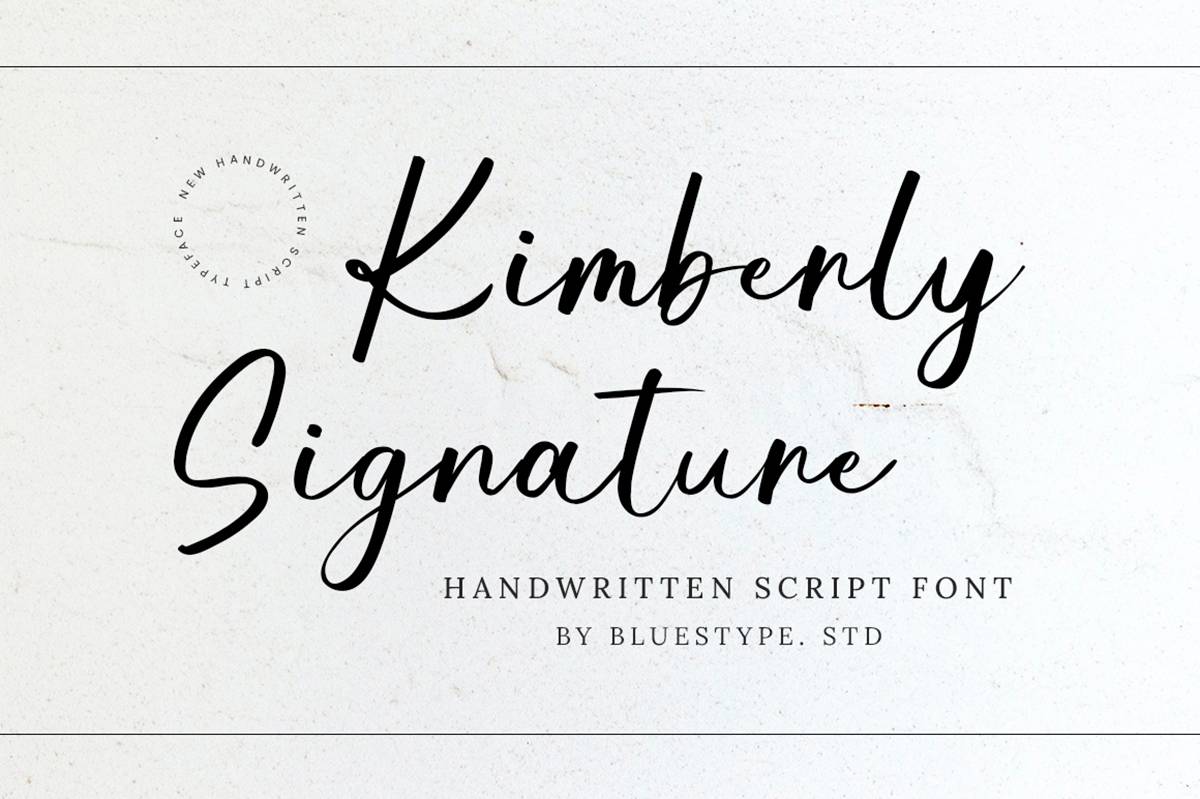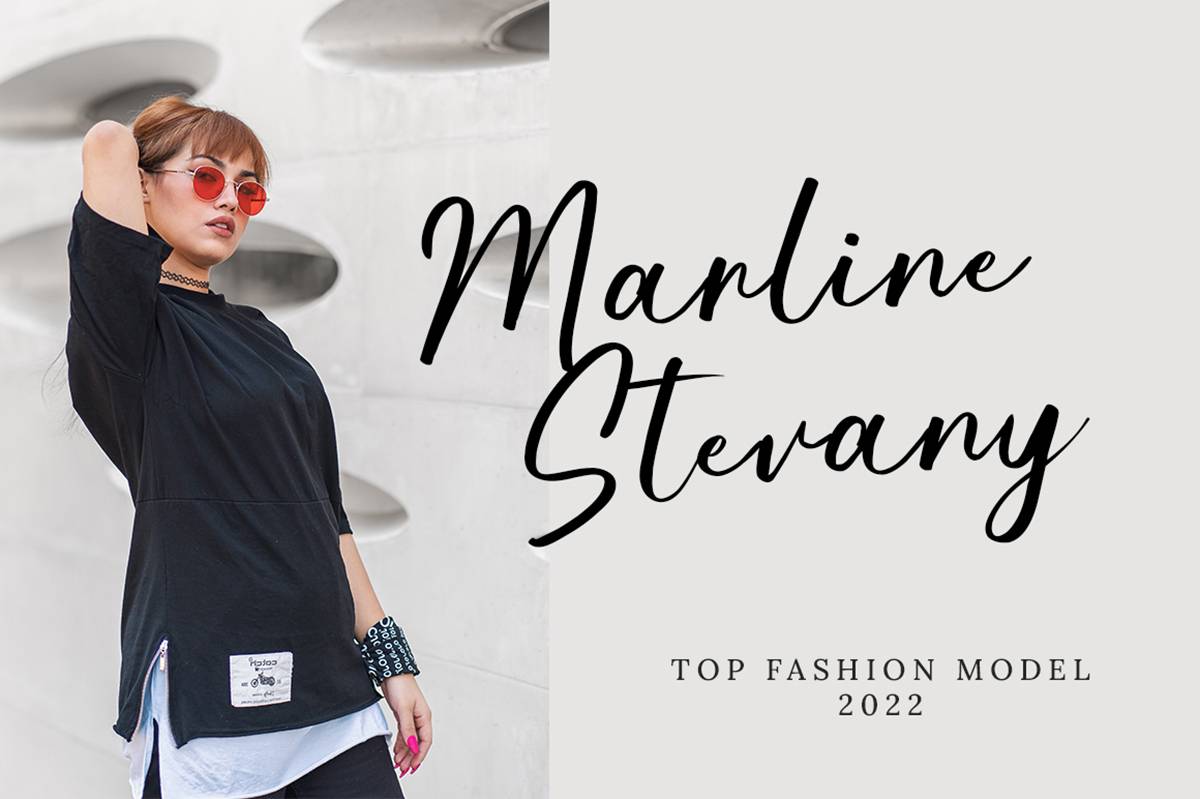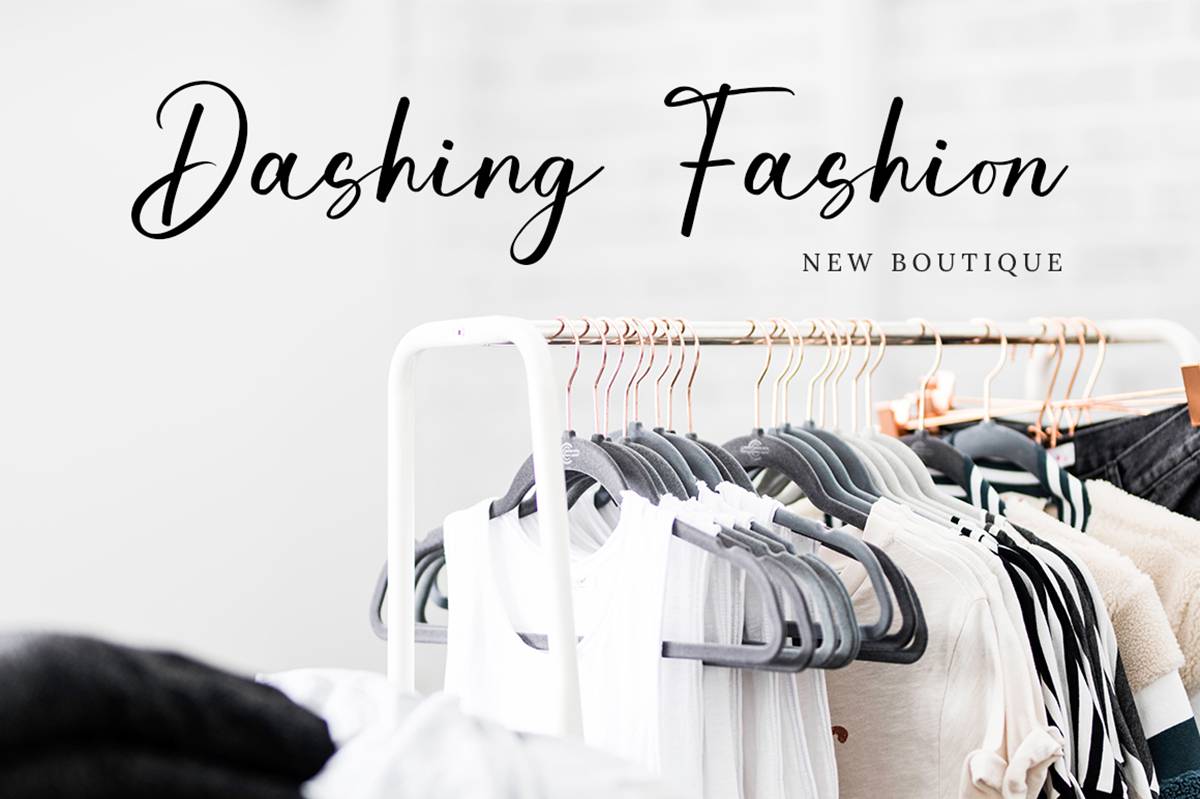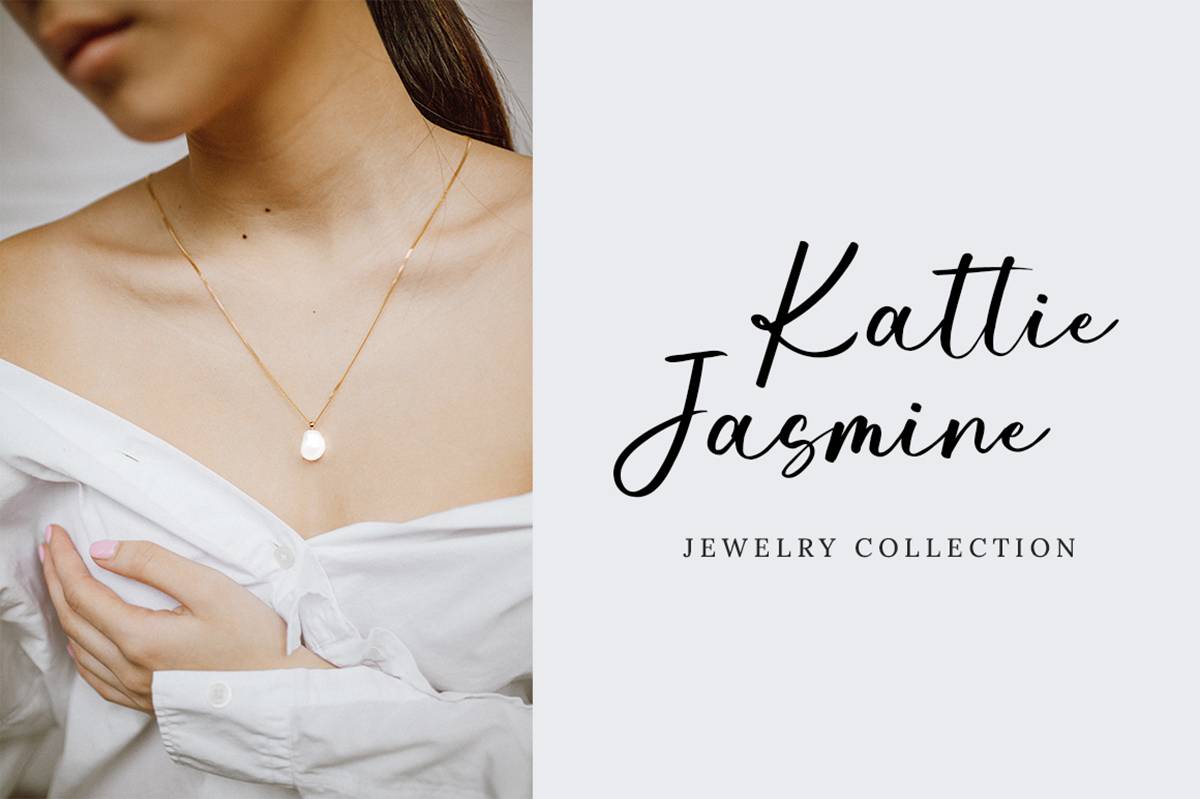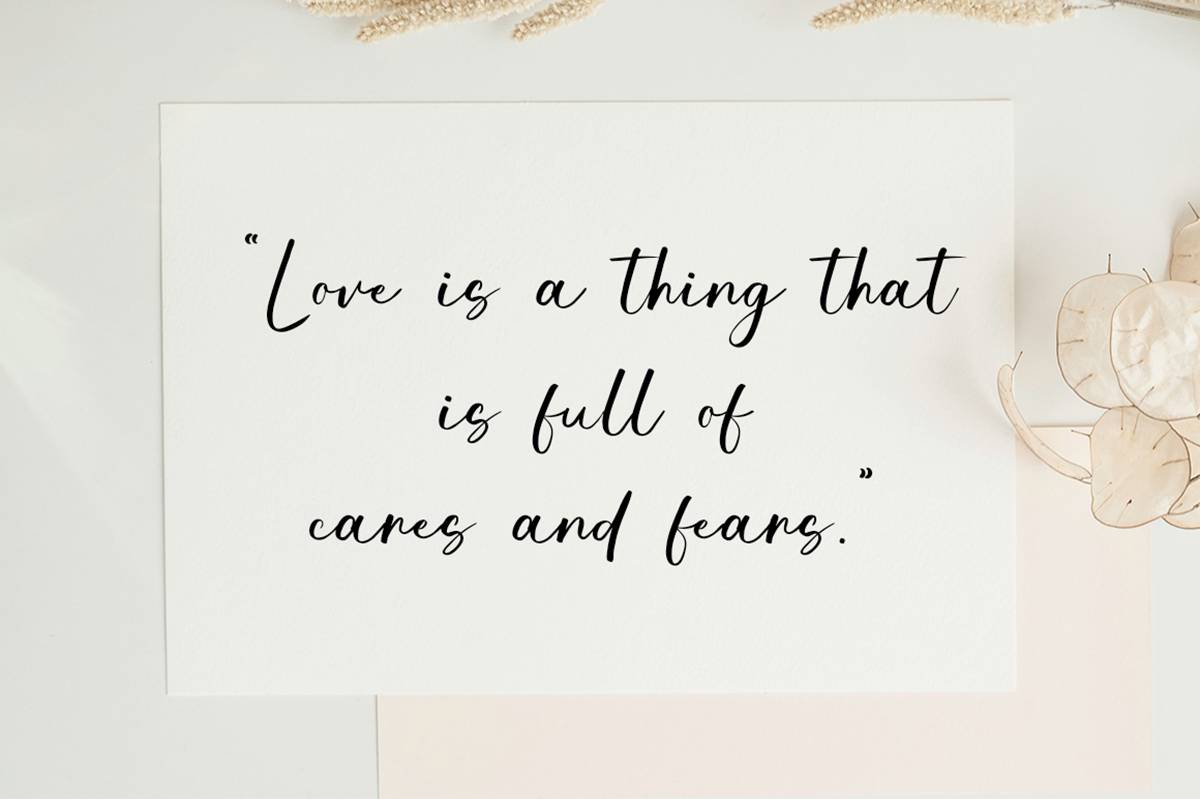
Kimberly Signature is a delicate and elegant script font that mimics natural handwriting with a feminine touch. Its slender, flowing letterforms and moderate contrast give it a refined yet approachable feel, making it perfect for branding, invitations, and stylish editorial projects where a personal and graceful look is desired. This font works especially well in logos and headlines that seek to convey sophistication with warmth.
Kimberly Signature Font
About Kimberly Signature Font
| Font family | Kimberly Signature Font |